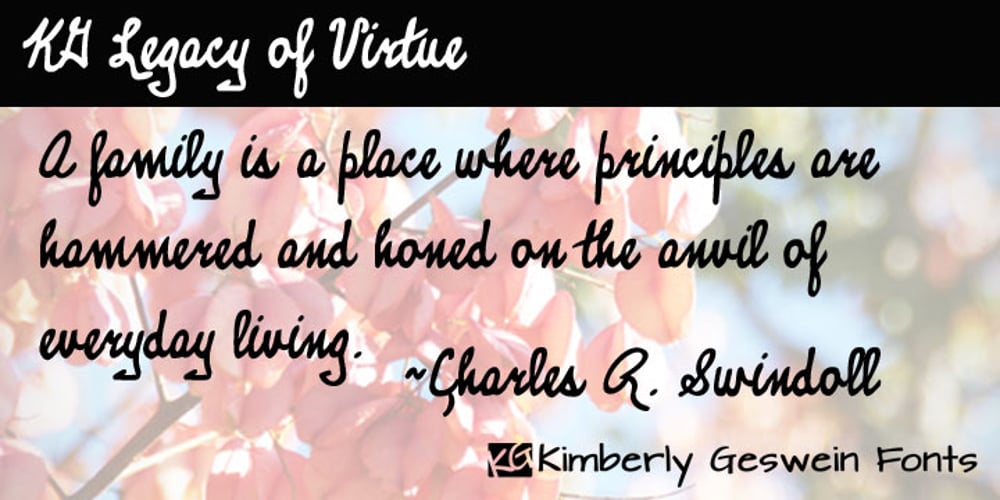
KG Legacy Of Virtue
KG Legacy Of Virtue font
KG Legacy Of Virtue Font Family was designed by Kimberly Geswein and published by Kimberly Geswein. KG Legacy Of Virtue contains 1 styles and family package options. This font is based on the handwriting of an elderly gentleman who hand-copied the Bible twice in his lifetime. His neat, fluid penmanship leaves a written legacy of love for his family and God.